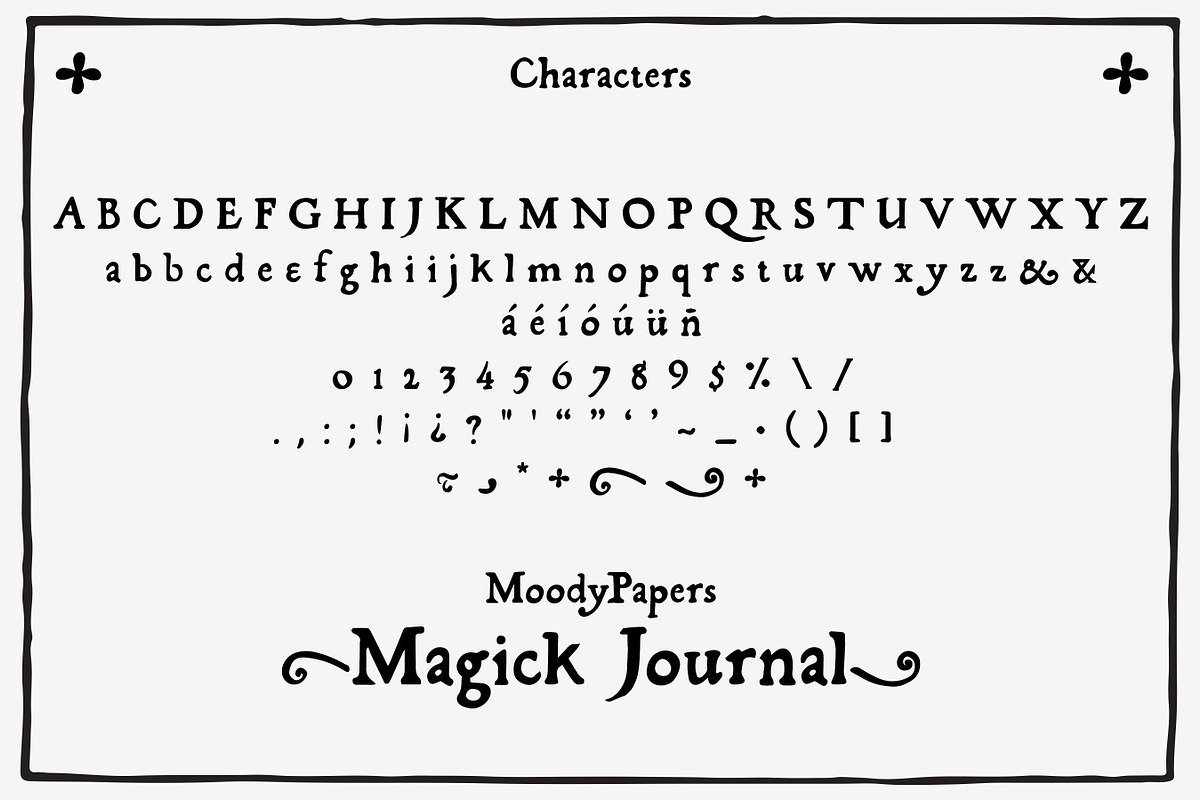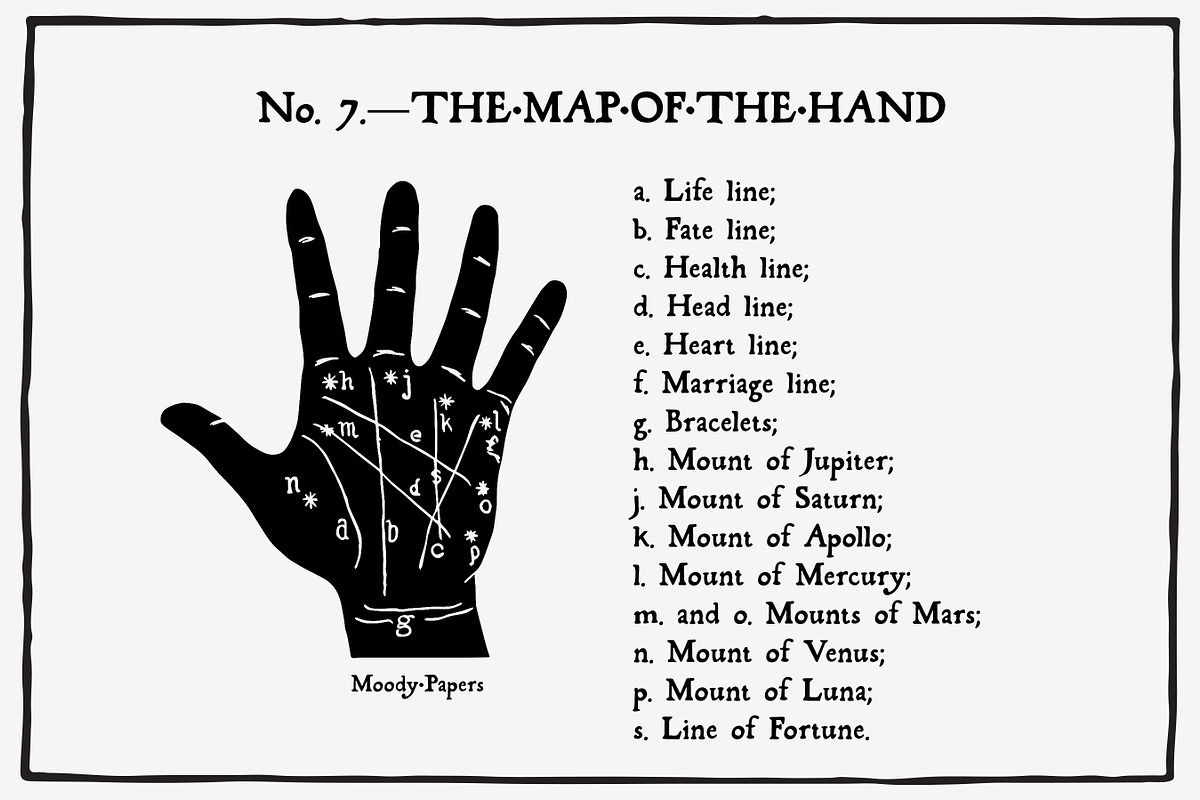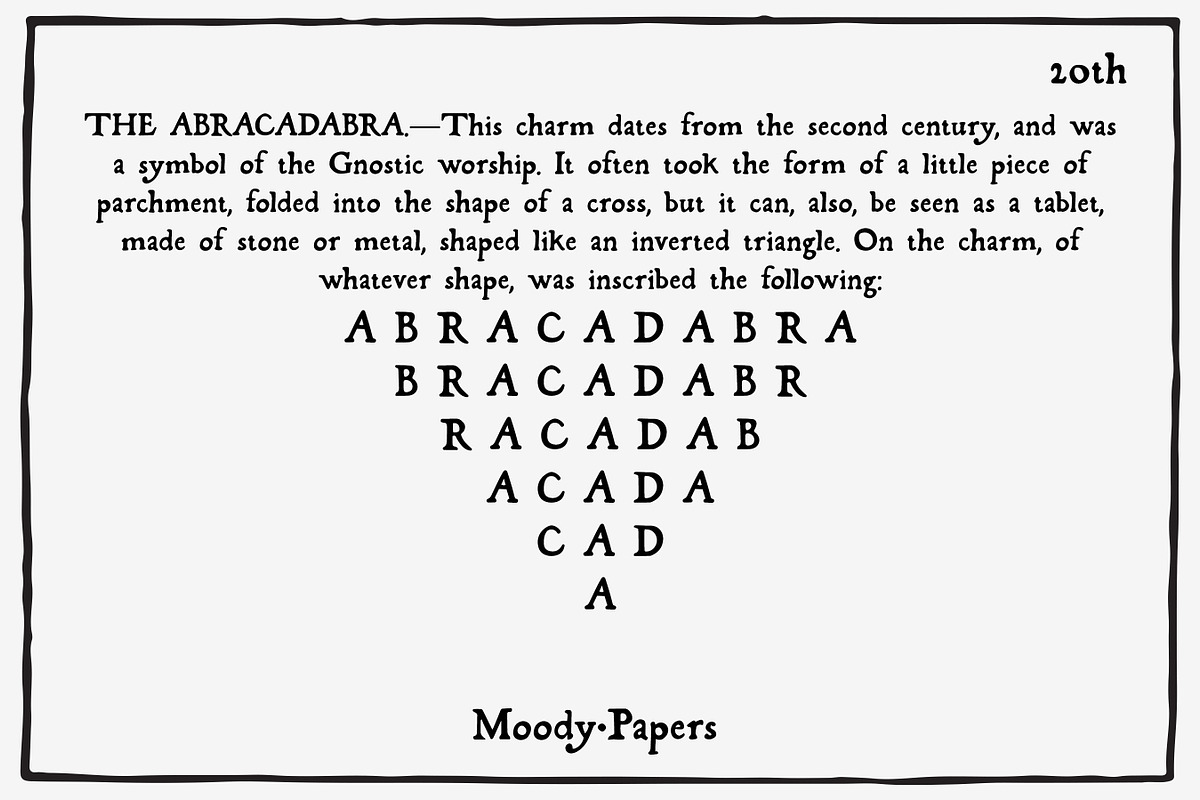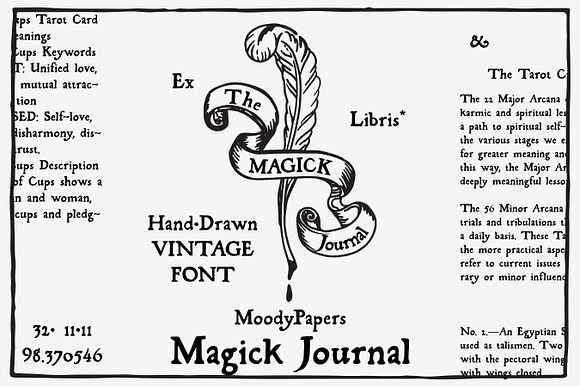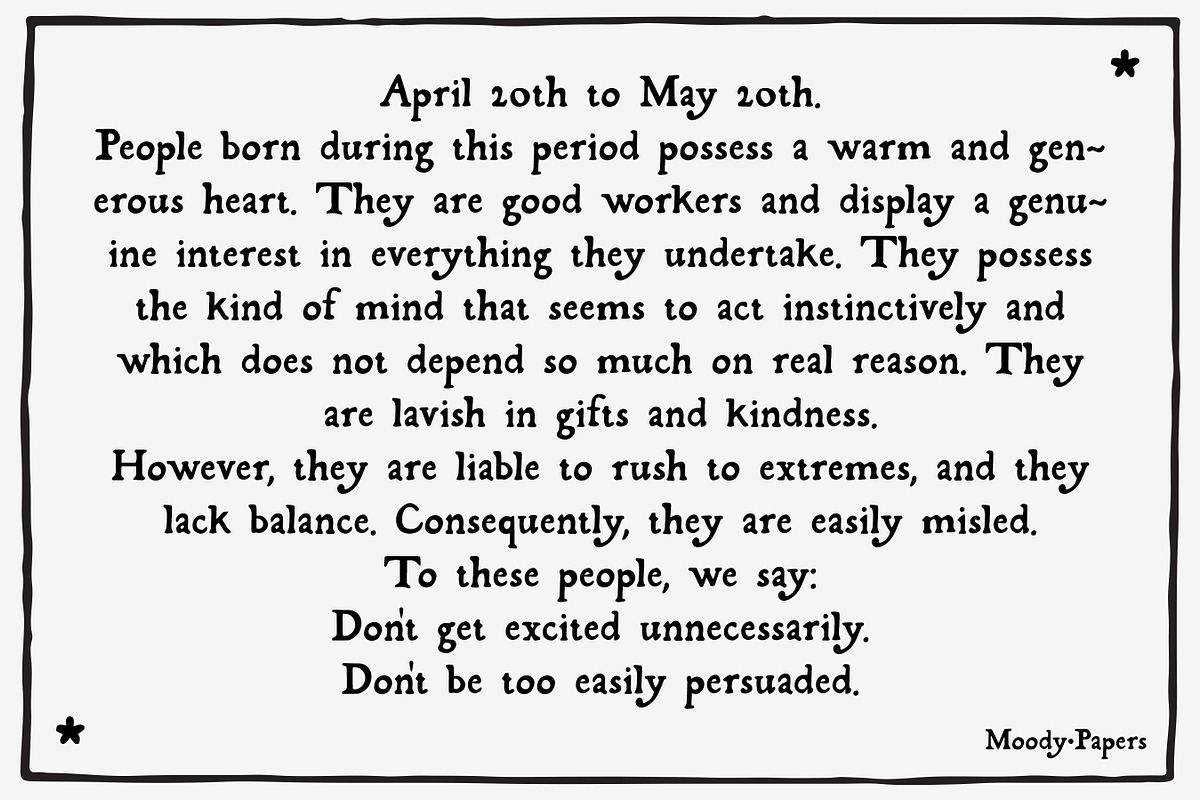
Magick Journal - Hand Drawn Font
Magick Journal✨ a Wizardly hand-drawn SVG font.
Magick Journal - Hand Drawn Font by MoodyPapers fits naturally into Branding, posters, packaging, typography.